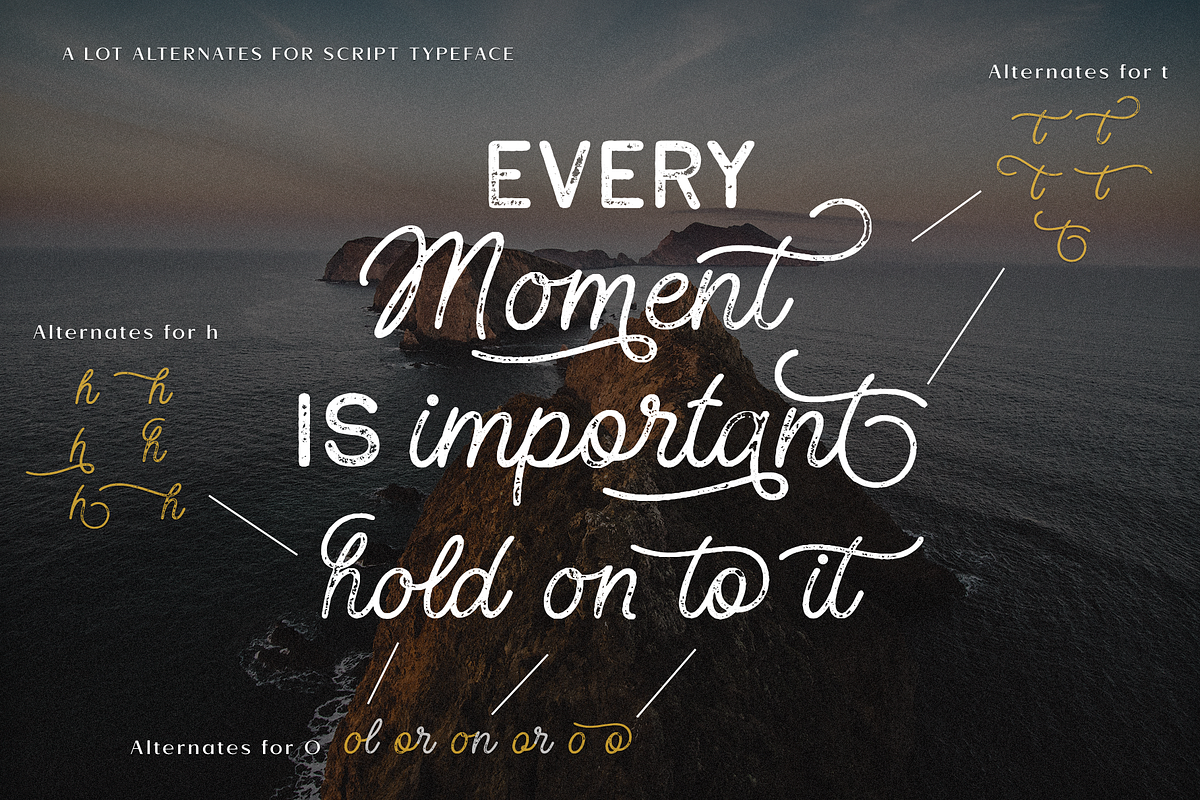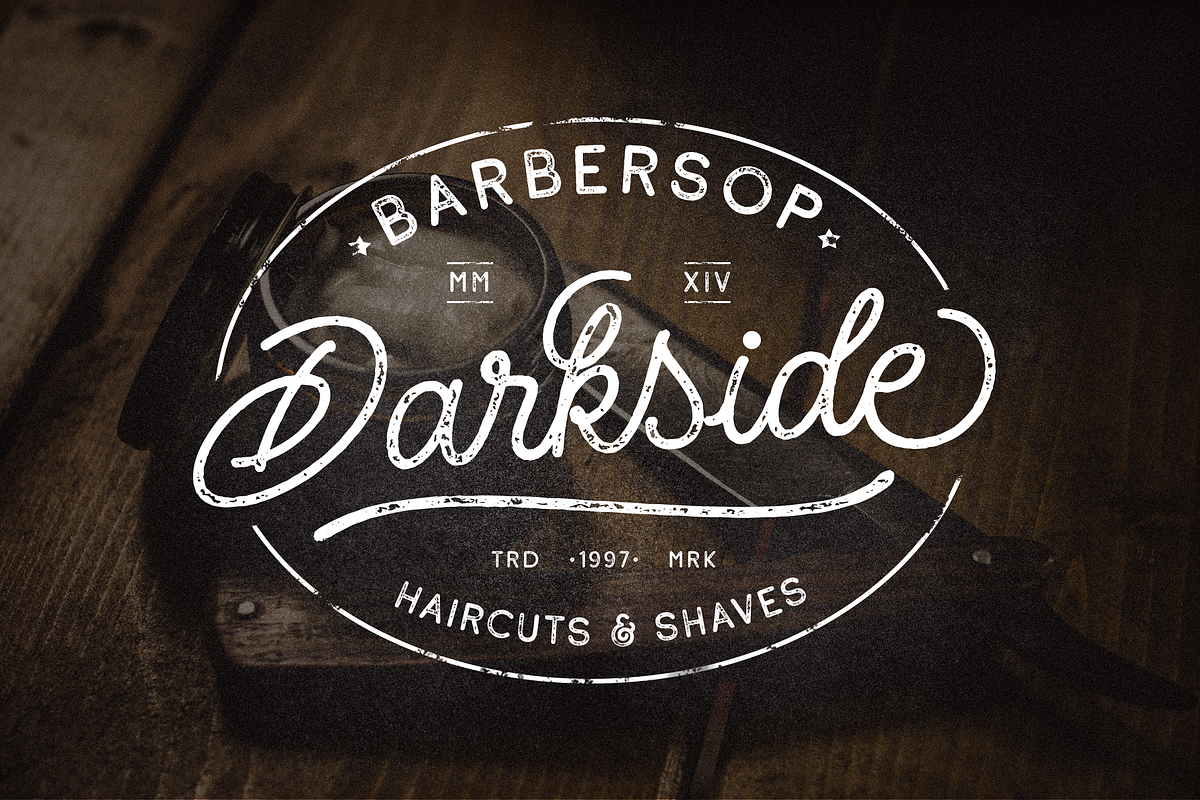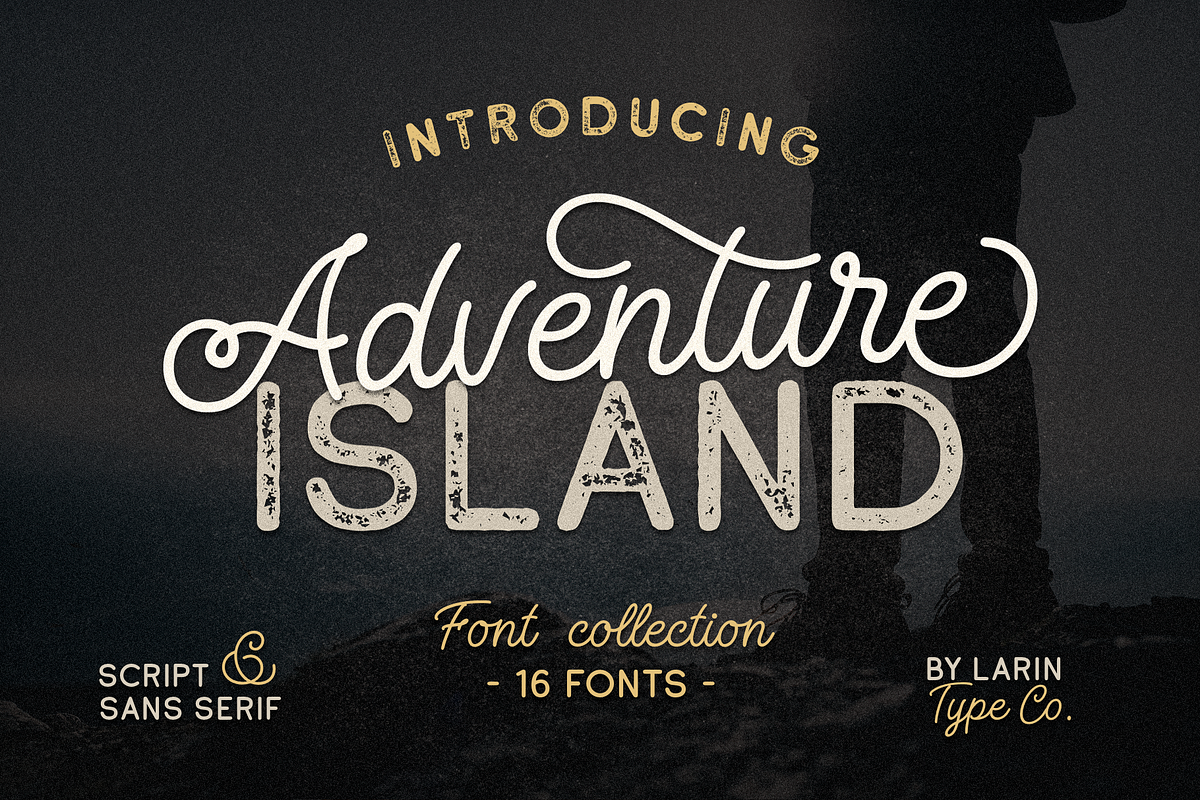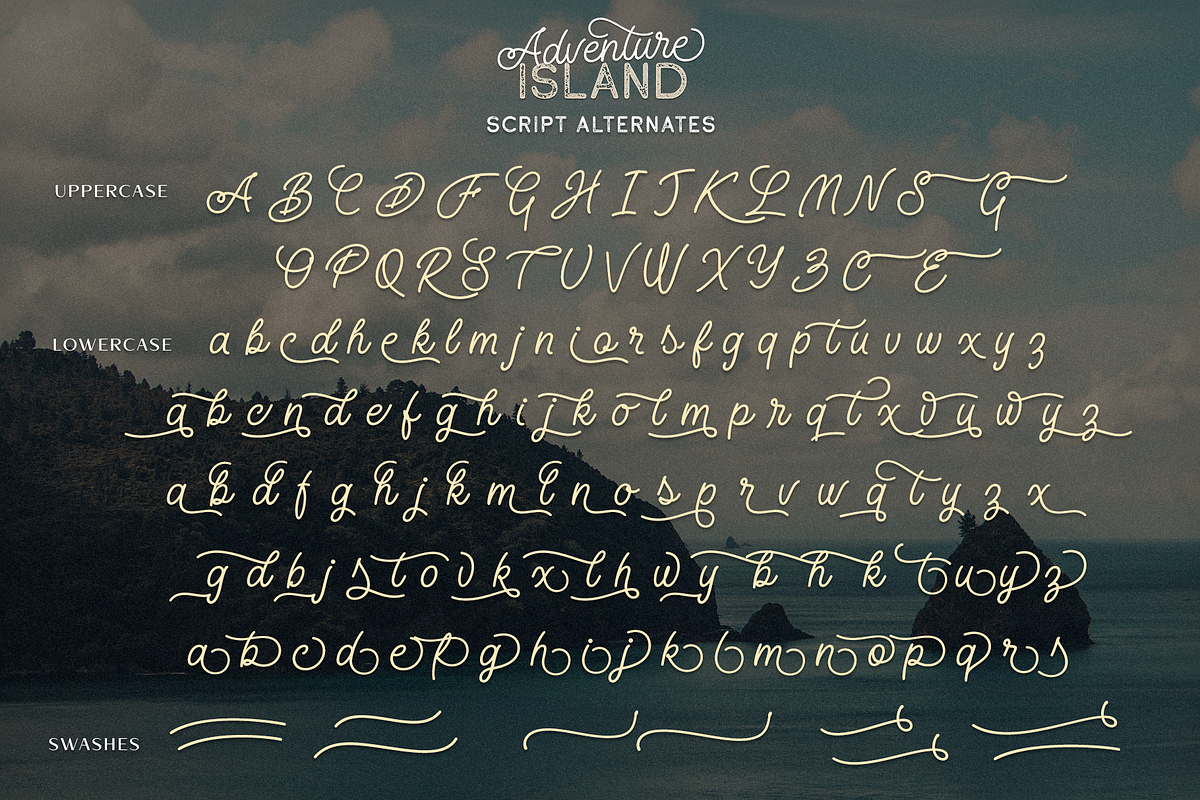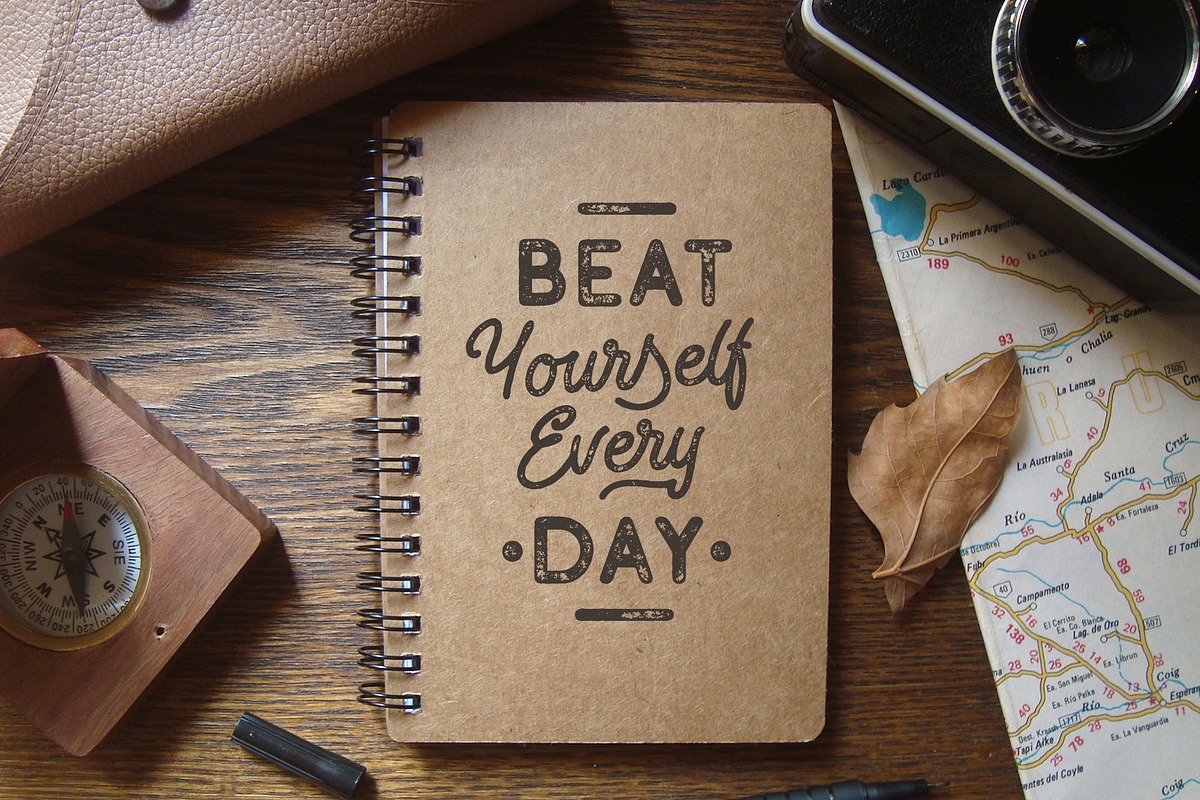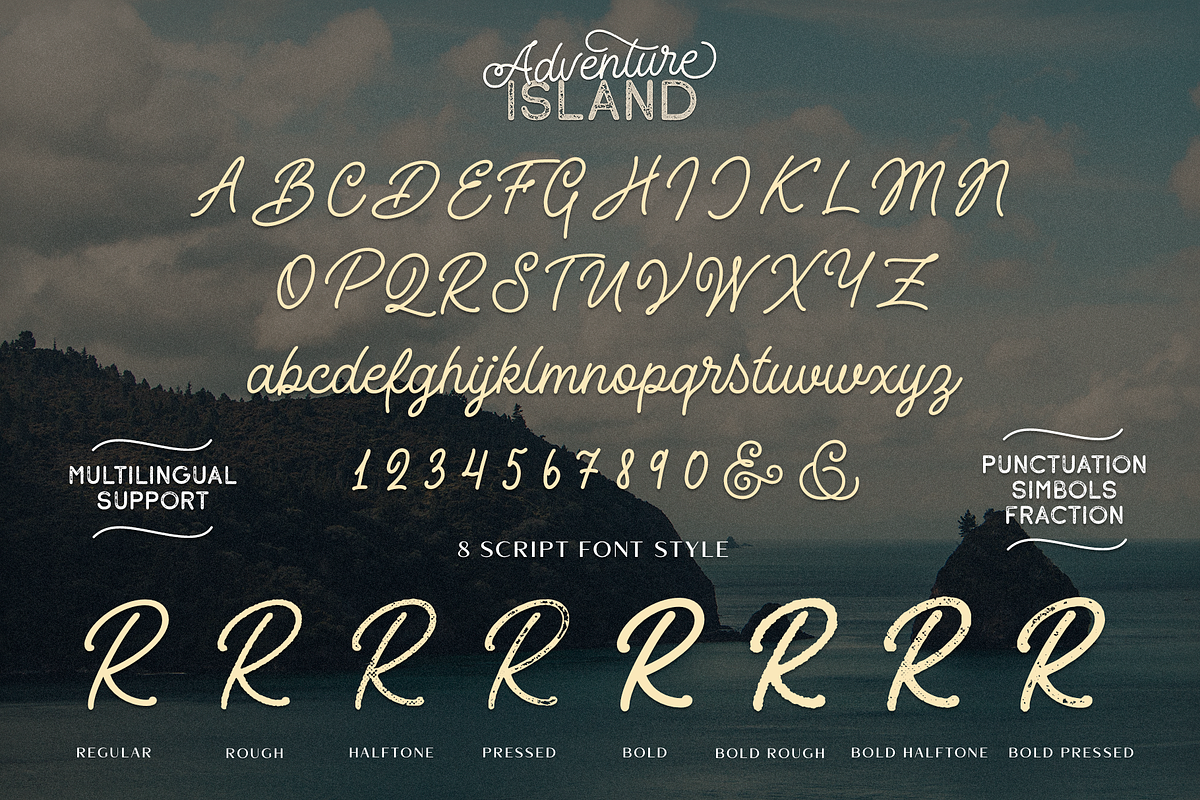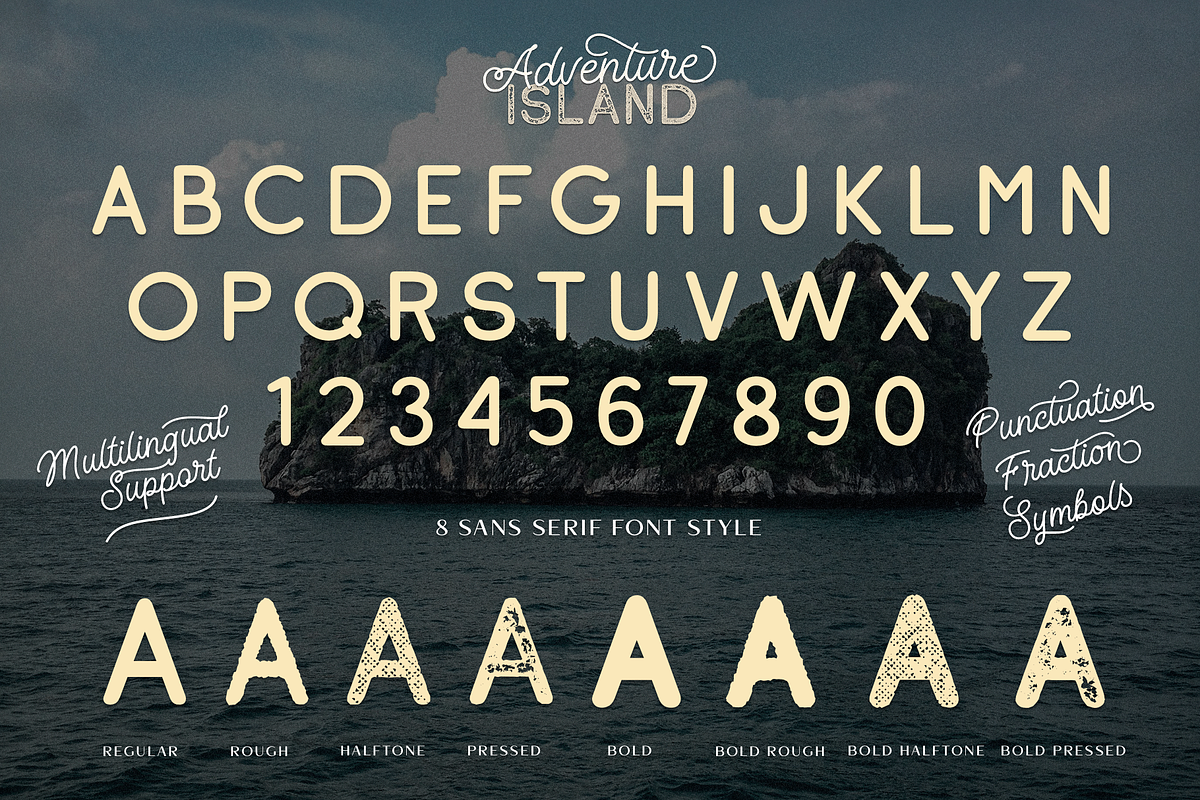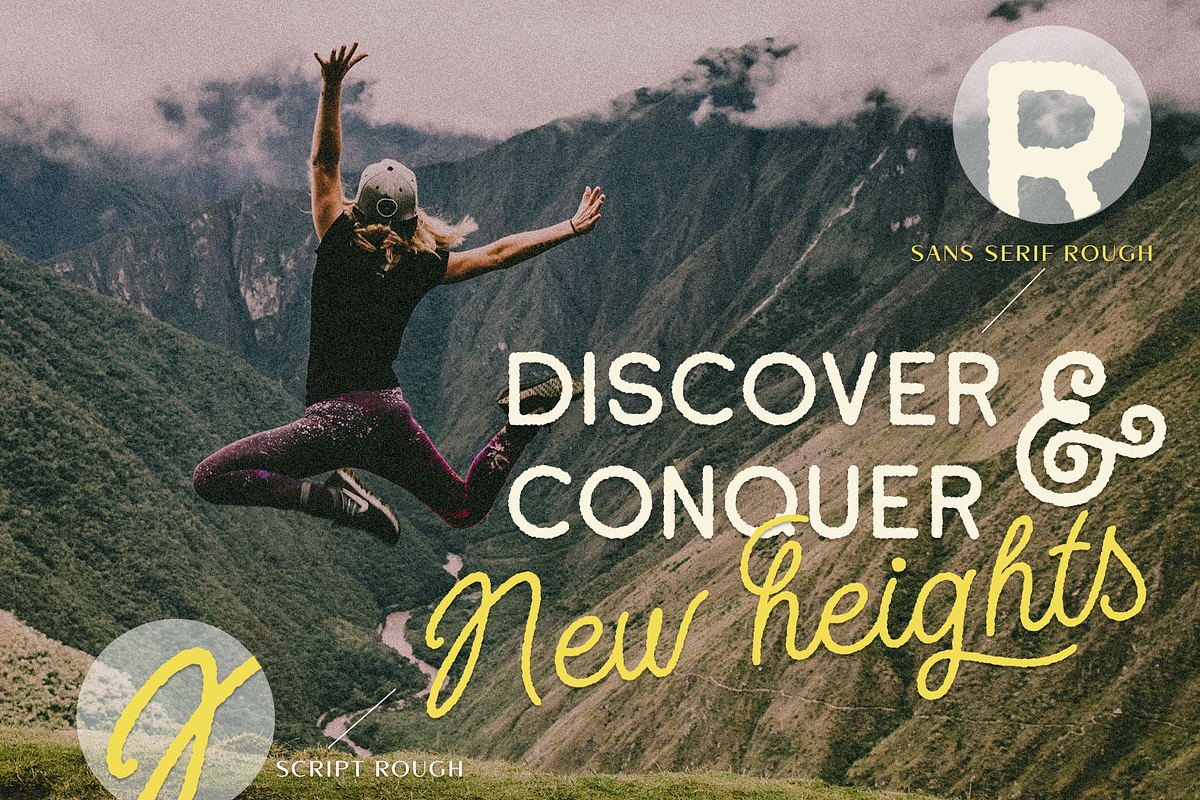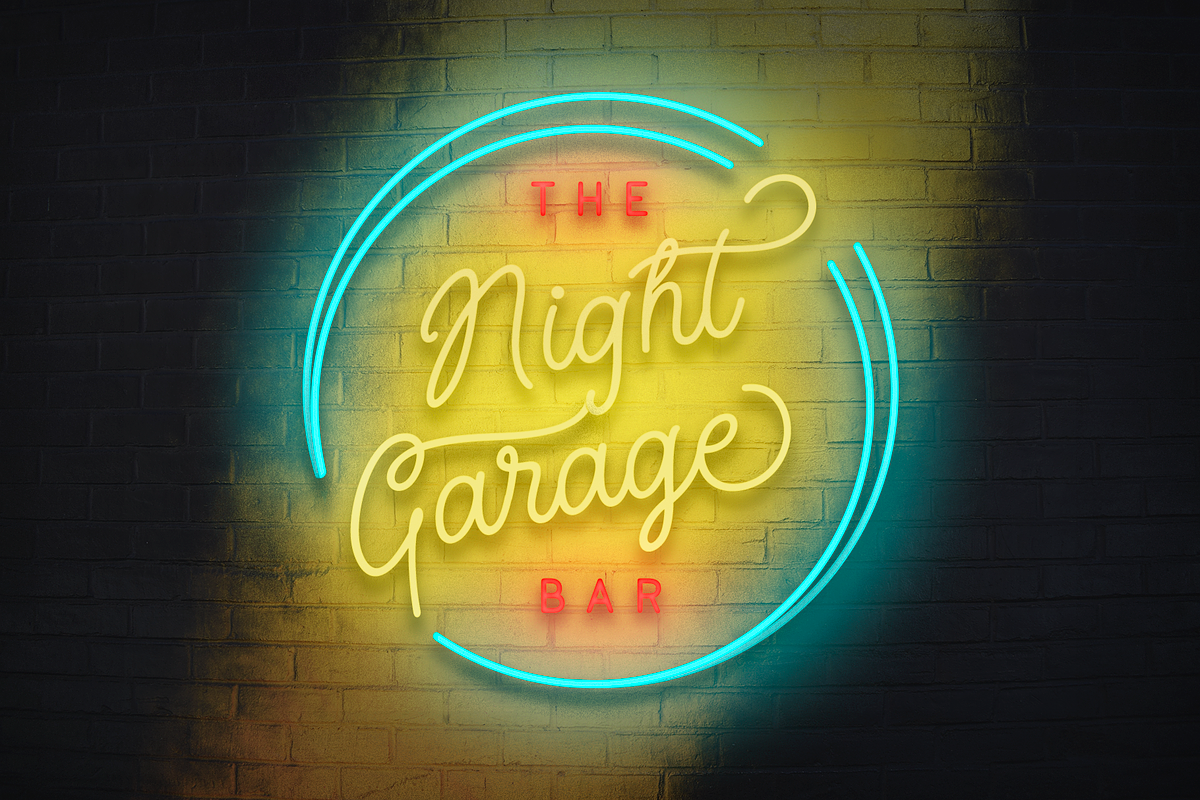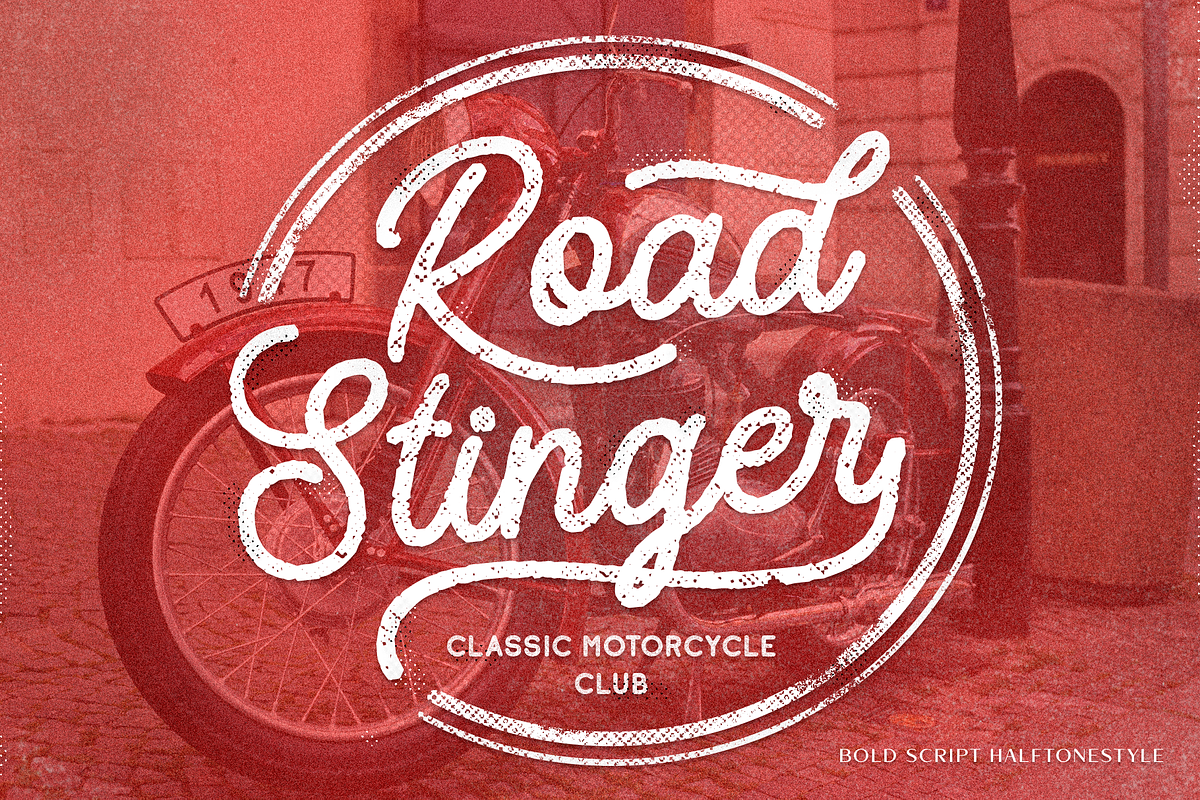
Adventure Island
Adventure Island this is a stunning font family that consists of two types of fonts, script and sans serif, and each has 8 weights (Regular, Rough, Halftone, Pressed, Bold, Bold rough, Bold halftone, Bold pressed,). With their help, a lot of options are opened for you to create your projects, both in vintage and in modern style.
These fonts are like twin brothers, they fit perfectly and complement each other. The Script type has flowing shapes and is made to shine and lively for the full hand-signature effect. Sans serif type is also made in monoline and has rounded corners and smooth lines.
The script style has alternatives for uppercases and many alternates for lowercaes, with them you can make your design more expressive, varied and playful, change them and you will see how many options you can get for your design, also use swashes touches to complement your design.
Following international symbols support: ÀÁÂÃÄÅĄÇĆÈÉÊËĘÌÍÎÏÐÑŃŁÒÓÔÕÖØÙÚÛÜŚŠŸÝŹŻŽßàáâãäåçèéêëìíîïðñòóôõöøùúûüýÿąćęłńśšźżž
16 fonts: 8 script fonts and 8 sans serif fonts ( Regular, Rough, Halftone, Pressed, Bold, Bold rough, Bold halftone, Bold pressed,)
Full alphabet with Uppercase and Lowercase A-z for script
Full alphabet with Uppercase for sans serif
Numbers, fractions for all fonts
Punctuation and mathematical symbols for all fonts
Alternates Uppercase and Lowercase also ampersand for script
Swashes for script
Multilingual support all fonts